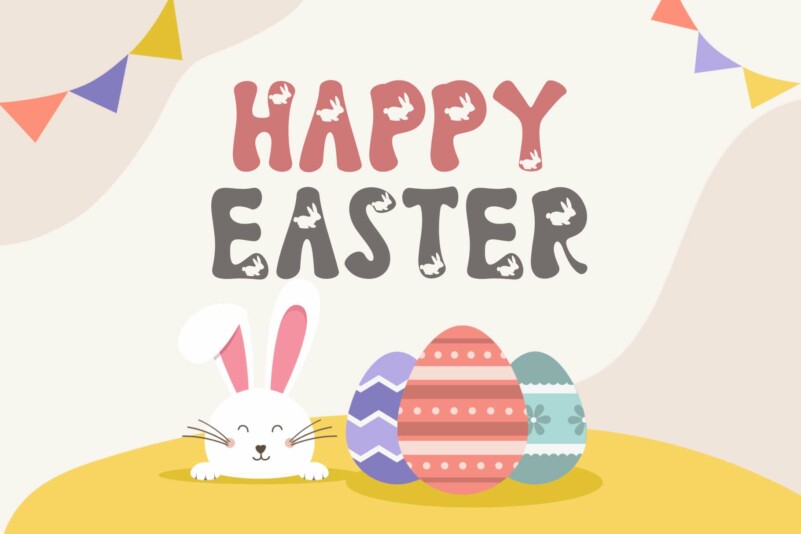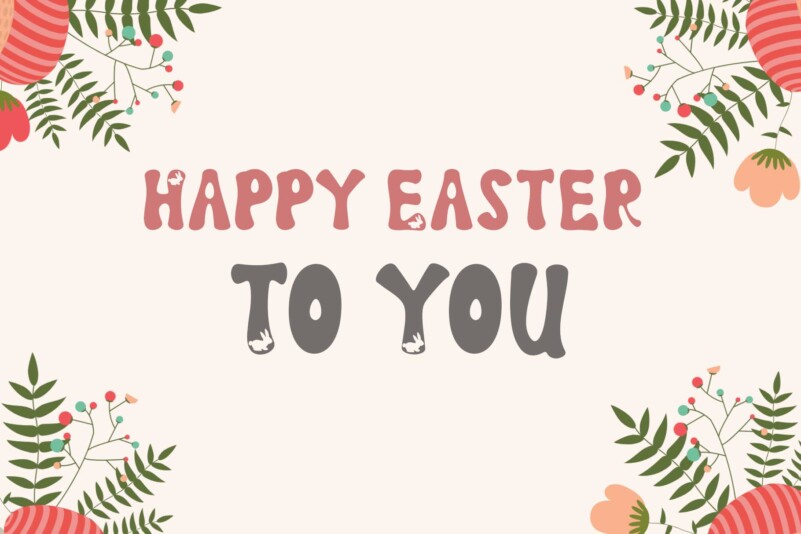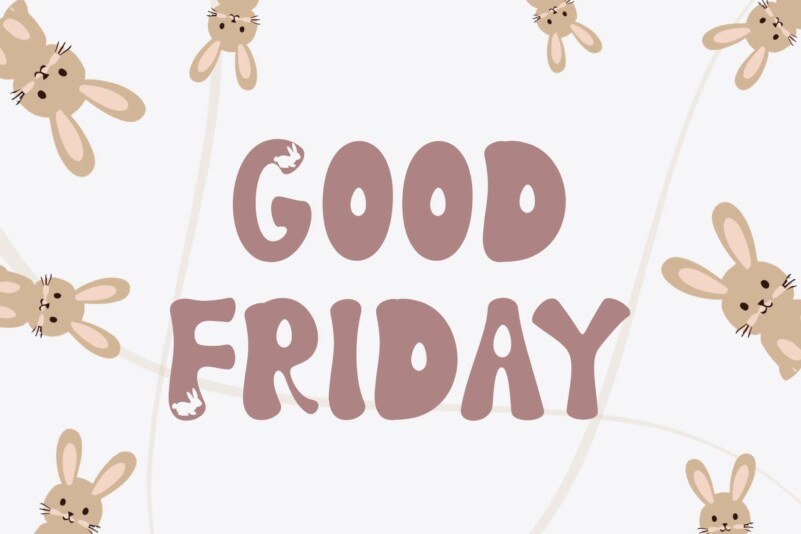
Easter Rabbits Font
Easter Rabbits Display Font is a cute and unique display font. This font has bunnies in the letters, making it perfect for Easter occasions. Equipped with uppercase, lowercase, numerals, punctuation, and multilingual support. It is suitable for Easter, spring, summer, and more.